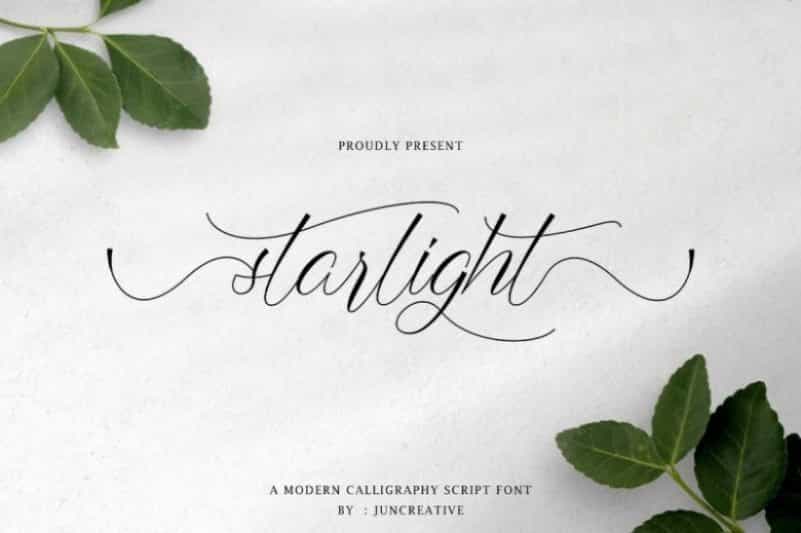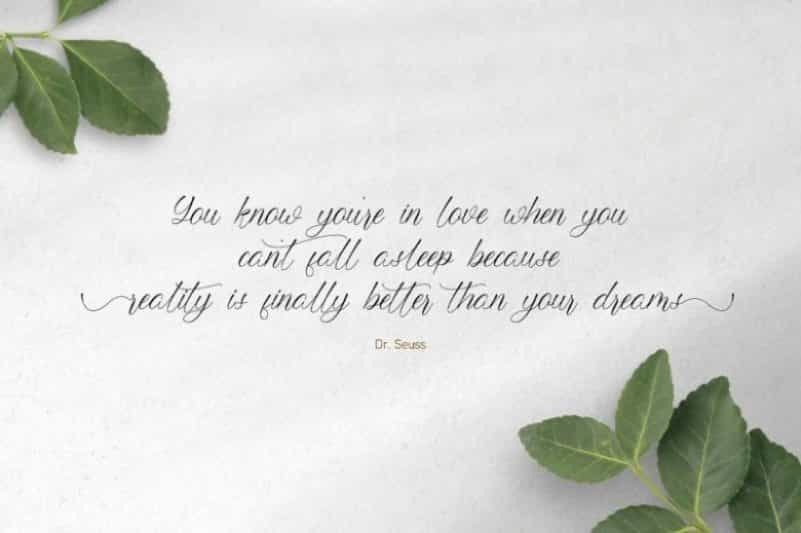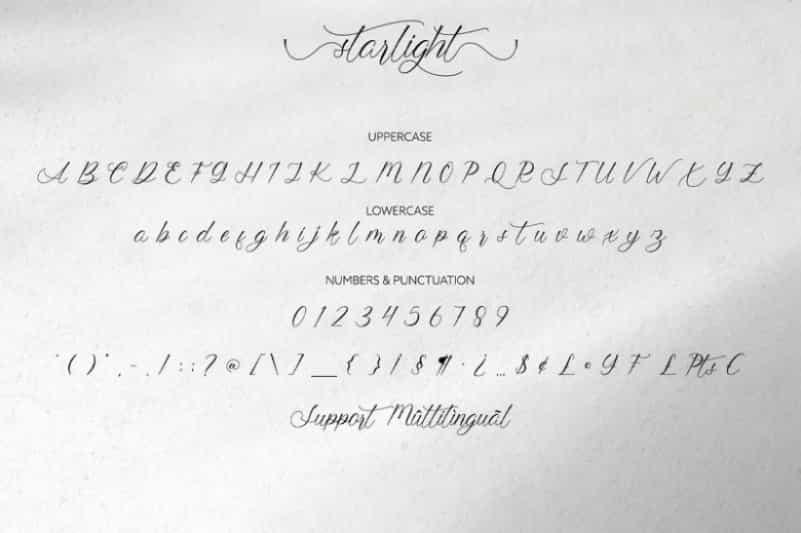
Starlight is a script font that is perfect for the contemporary designs as it offers both the upper and lower case letters, multilingual support, symbols, numerals, punctuations, and end lower case swashes for adding more creativity.